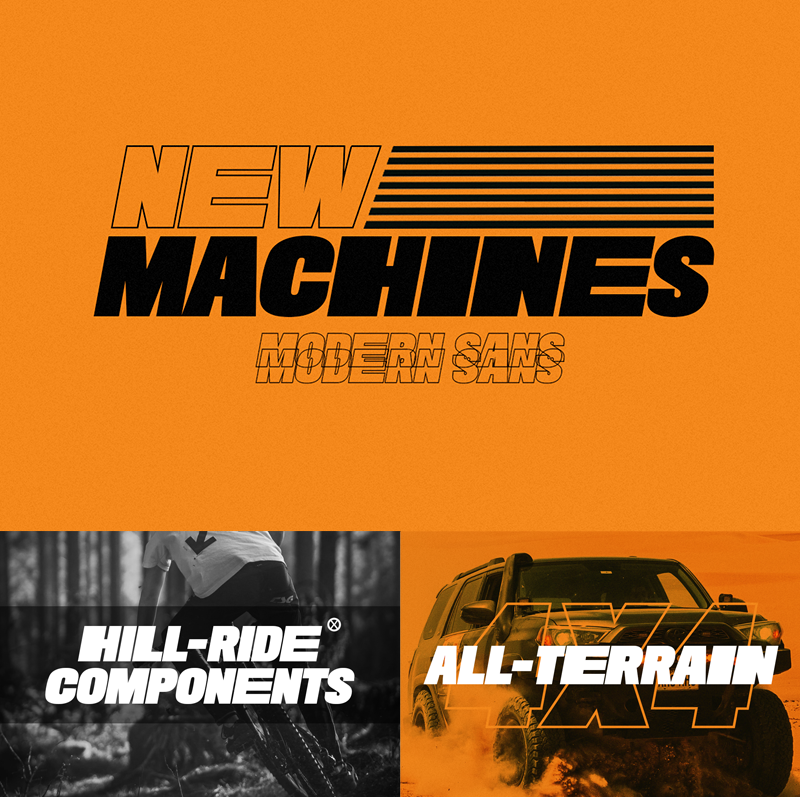
Preview and download New Machines Font. Created by The Branded Quotes in Basic Sans serif styles with Demo license.
Purchase the Full Version/Commercial Use: https://sellfy.com/thebrandedquotes/p/new-machines-modern-sans/ About this font: A ready to use Sans Serif with extended looks. The trendy-looking glyphs are very easy to access. No need of technical skill and applications. Just install the font and type it over your designs and documents. Toggle shift key to access the alternates. A hassle-free Modern Typeface! Includes both Regular and Outline versions. Features: -Regular OTF -Outline OTF -Multilingual Support Enjoy! |